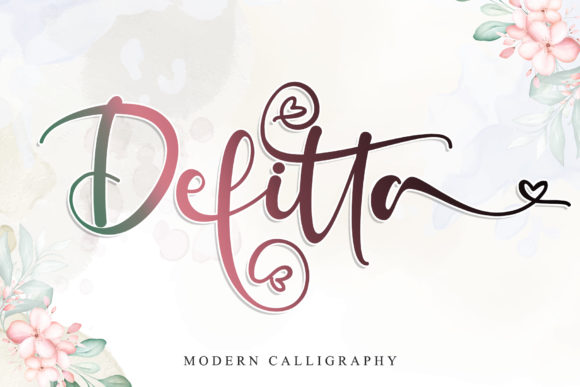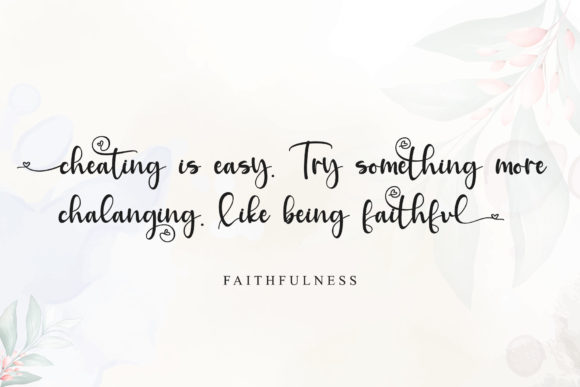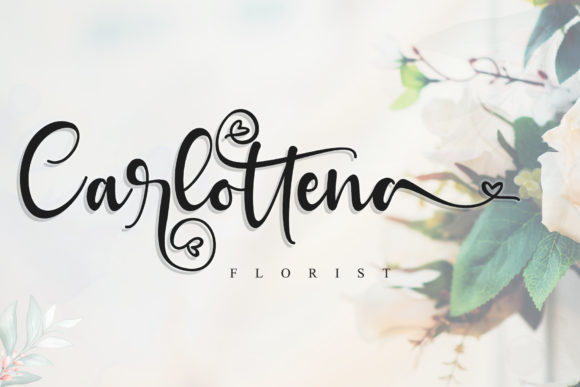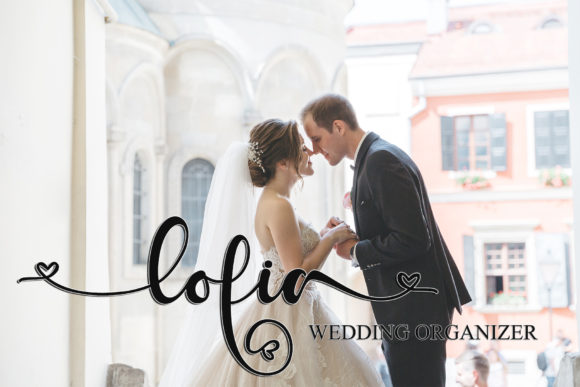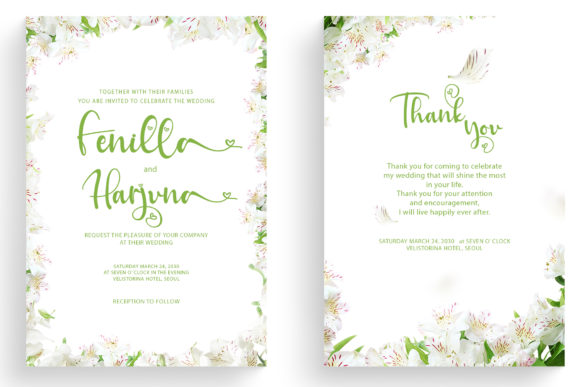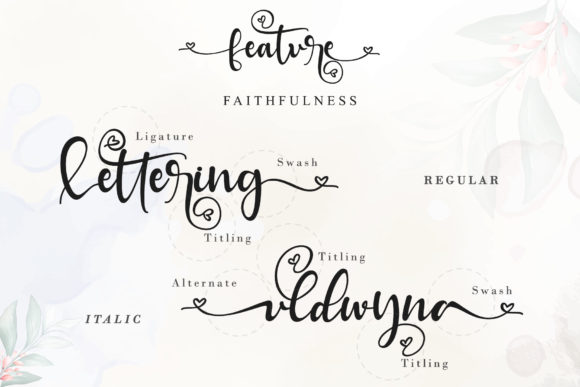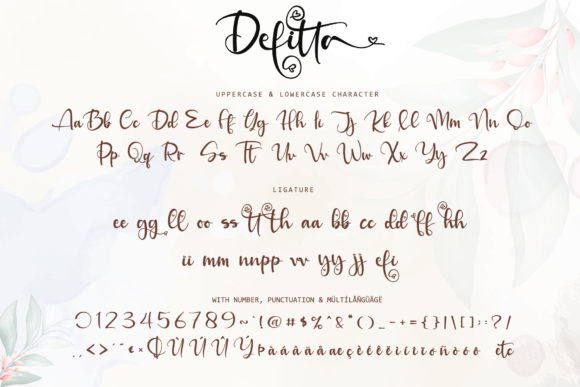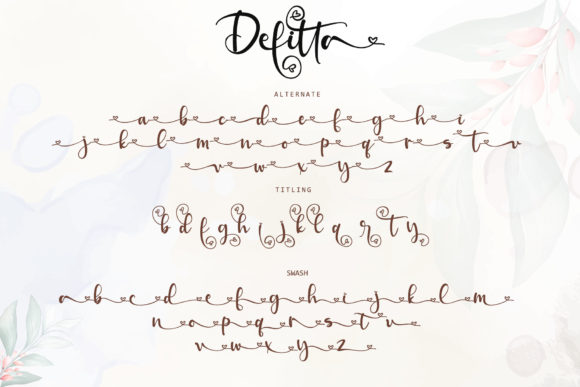
Defitta Font
About Defitta Font
Defitta is an incredibly beautiful and timeless script font. It is PUA encoded which means you can access all of the glyphs and swashes with ease! It features a varying baseline, smooth lines, gorgeous glyphs and stunning alternates. Fall in love with its versatile style and use it to create spectacular designs!